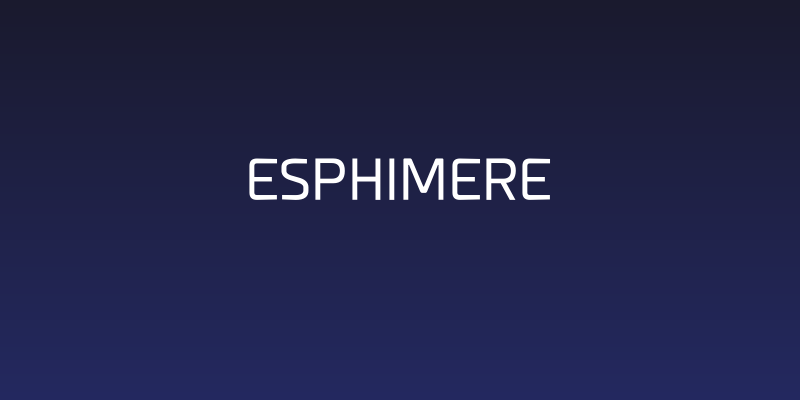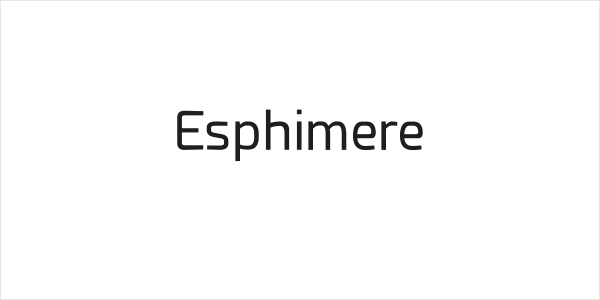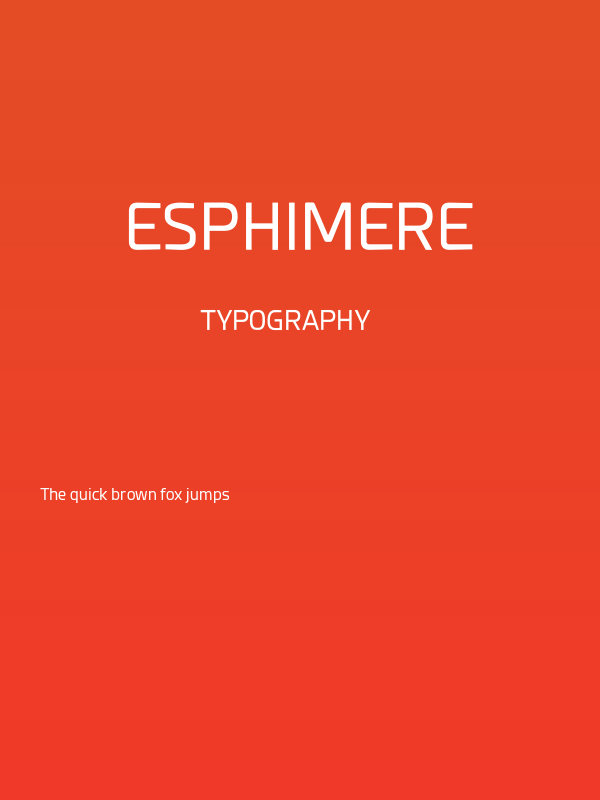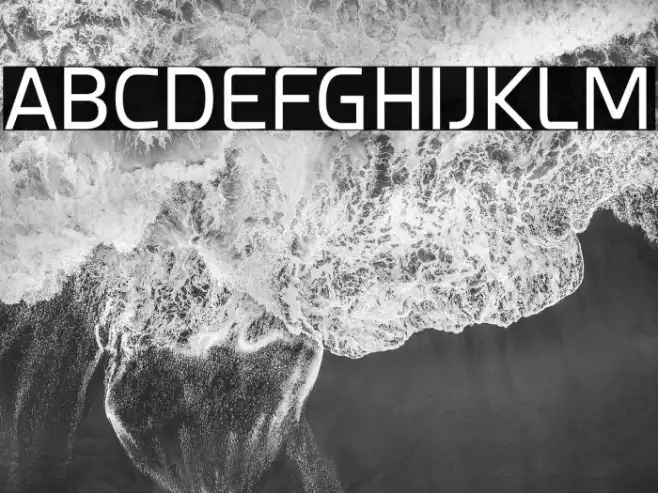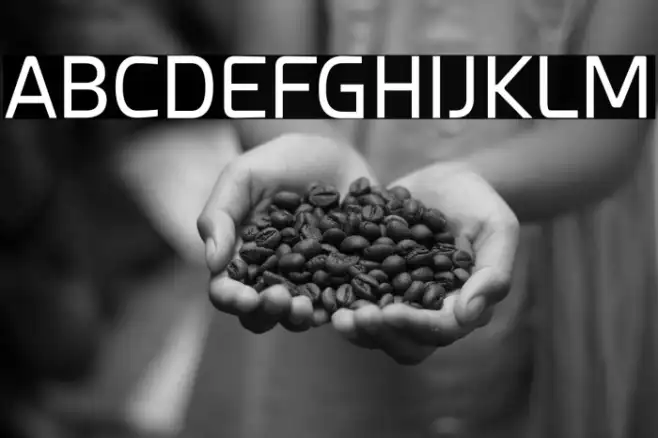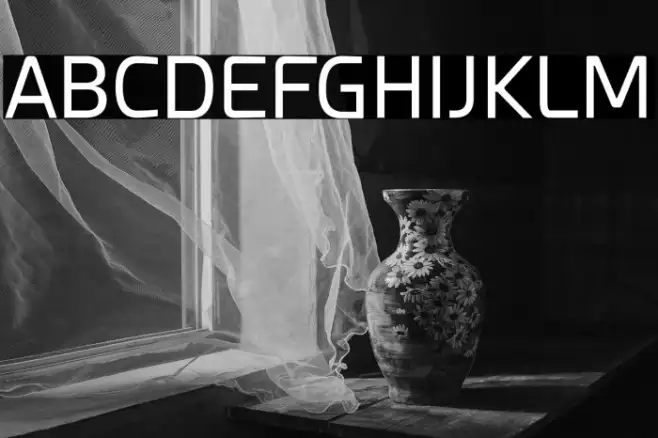
Esphimere Font
Esphimere Description
This font features a clean and modern sans-serif design with a geometric structure. The characters are well-balanced with a uniform stroke width, giving it a sleek and professional appearance. The uppercase letters are slightly taller than the lowercase, providing a distinct hierarchy. The numerals are clear and easy to read, making them suitable for various applications. Special characters are included, maintaining the font's cohesive style. Overall, this font is versatile and can be used in a wide range of design projects.